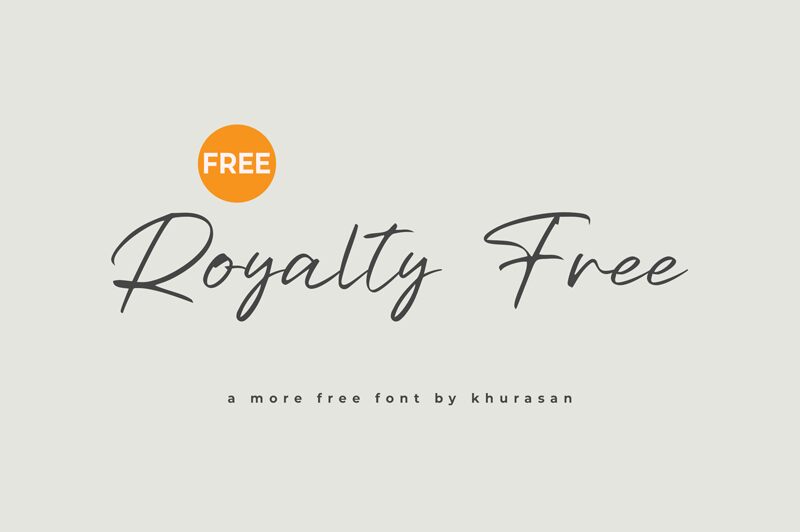
Royalty Free
Royalty Free font by Khurasan is a free light handwritten font. It solves the common dilemma of needing something elegant without sacrificing clarity: the strokes are silky and consistent, the slant is confident, and the spacing leaves just enough air between letters to read at a glance. Subtle pressure shifts add a touch of inky warmth, while tidy entry/exit strokes keep flourishes graceful, not fussy.
Using Royalty Free, headlines glide and signatures feel personal yet polished. It shines on wedding invitations, boutique logos, beauty packaging, product labels, Instagram quotes, and event posters. This free font holds up in mid‑to‑large sizes and works beautifully when paired with a crisp geometric sans for subheads; try generous tracking and slightly looser line spacing to let those loops breathe.